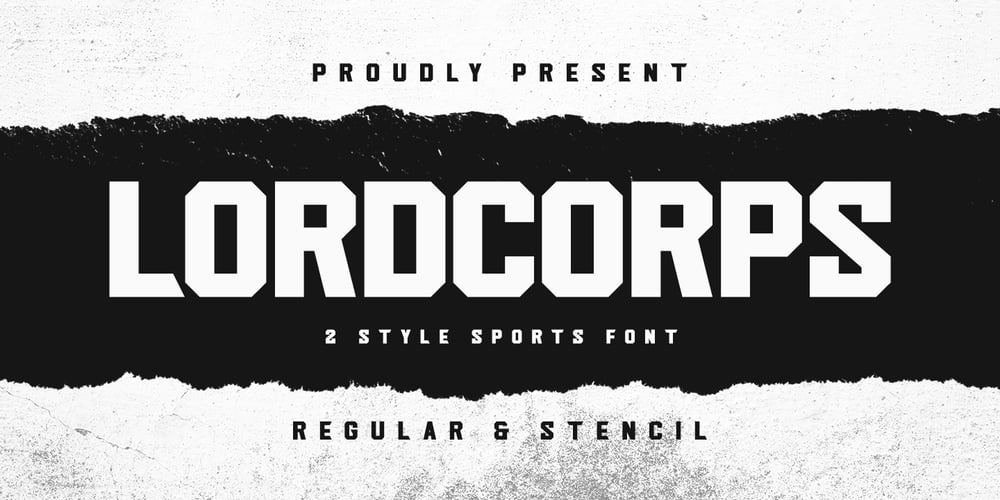
Lordcorps Font Family was designed by Abdul Malik Wisnu and published by Almarkha Type. Lordcorps contains 2 styles and family package options. Lordcorps is a simple and casual display font with a military feel. With its neat and beautiful arrangement of letters, this typeface will look outstanding in both formal and non-formal designs.